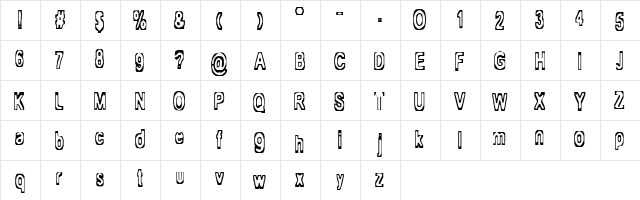
Mialgia recife!
Design Context for Mialgia Typeface
Mialgia is a composed and adaptable typeface that performs quietly and consistently across a wide range of design contexts.